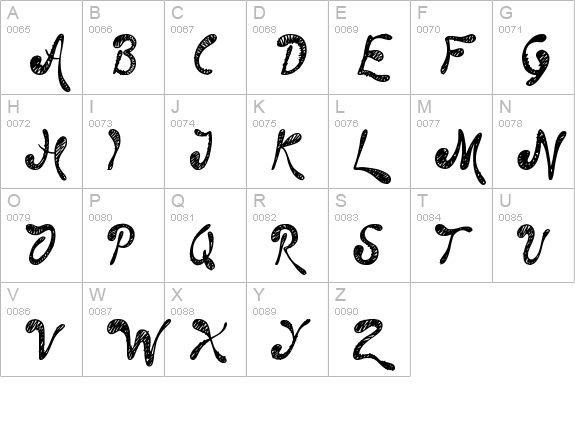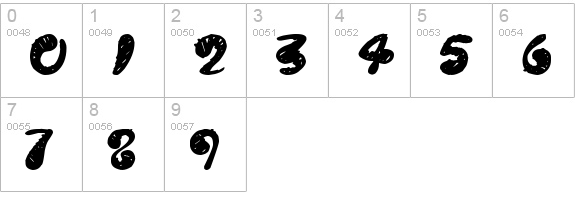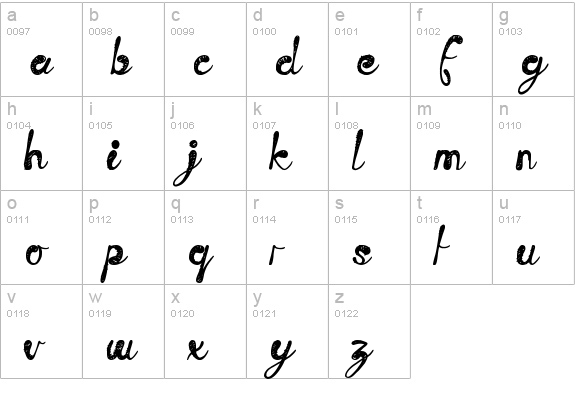
Introducing the Good Stuff font, a captivating and versatile typeface that is sure to add a touch of elegance and personality to any project. This font is a true gem, combining classic elements with a modern twist, resulting in a seamless blend of sophistication and creativity. With its clean lines and balanced proportions, the Good Stuff font effortlessly captures attention and conveys a sense of professionalism and style. Its carefully crafted letterforms exude confidence and charm, making it perfect for a wide range of applications, from branding and advertising to editorial design and beyond. But what sets the Good Stuff font apart is not only its impeccable design, but also its accessibility. This remarkable font is available completely free of charge, allowing designers, enthusiasts, and creatives of all kinds to enjoy its beauty and versatility without any limitations. Thanks to its freedom, the Good Stuff font can be freely downloaded at FontsMarket.com. This means that you can effortlessly incorporate this stunning typeface into your projects, whether you're a seasoned professional or a beginner exploring the exciting world of typography. So why wait? Unleash your creativity and elevate your designs with the Good Stuff font. With its timeless appeal and accessibility, this font is truly a treasure worth exploring. Download it today at FontsMarket.com and discover the limitless possibilities it holds for your next project.